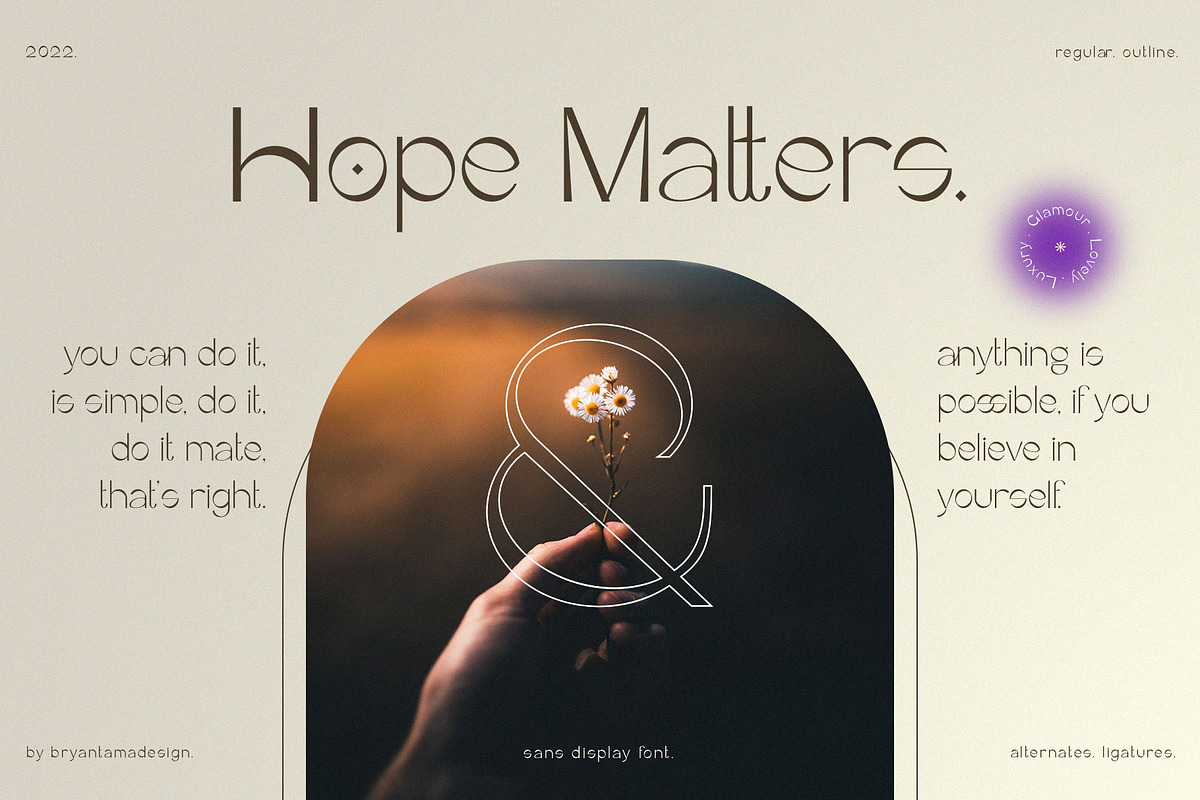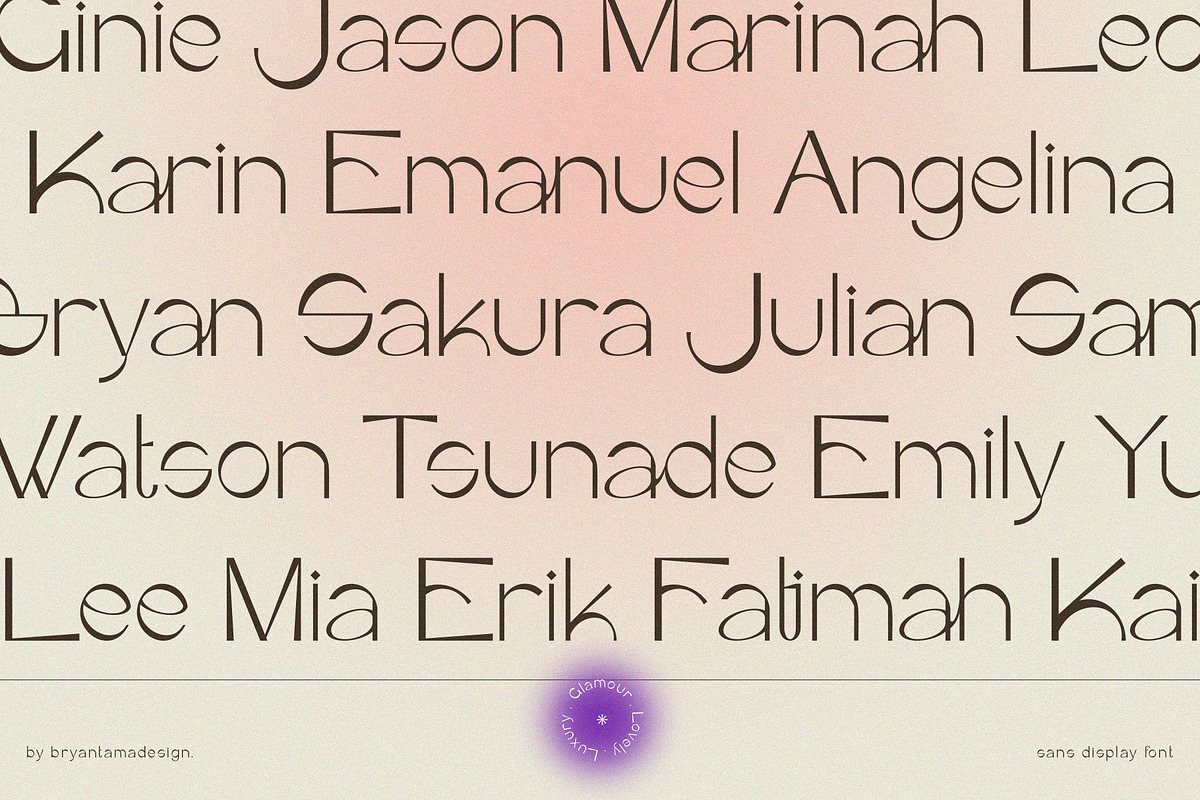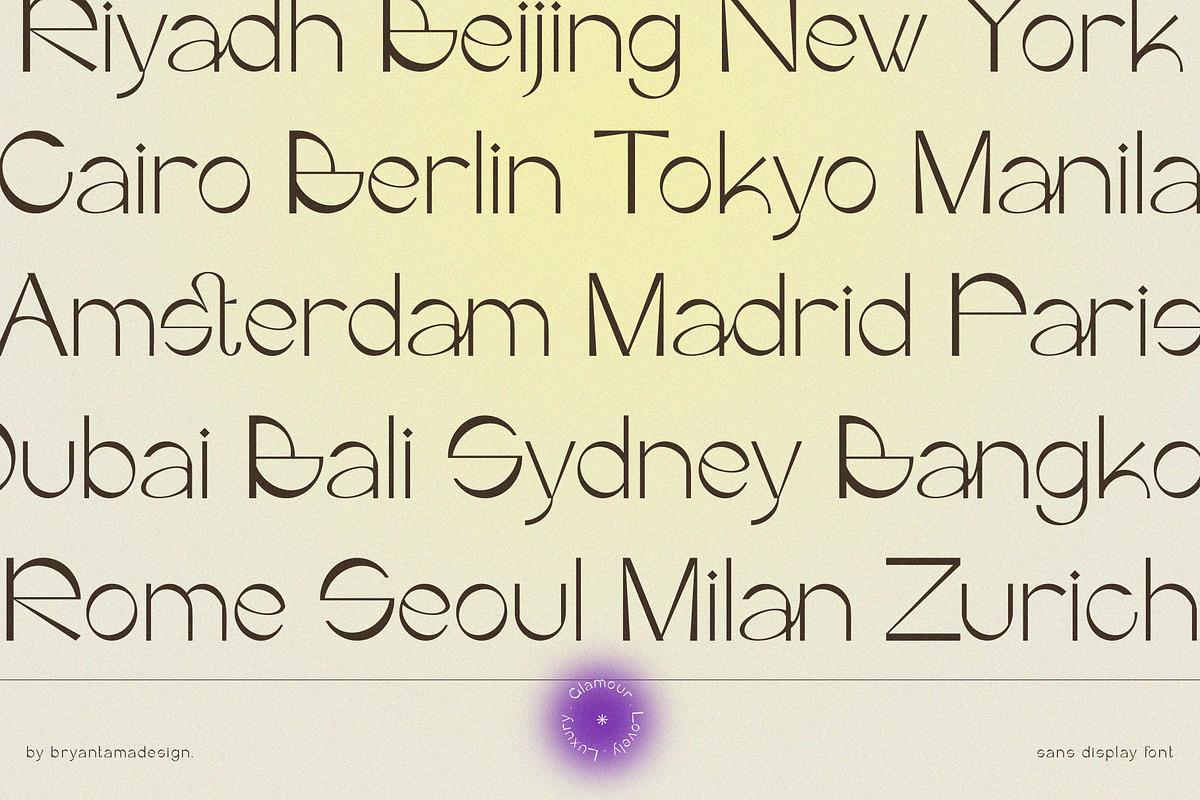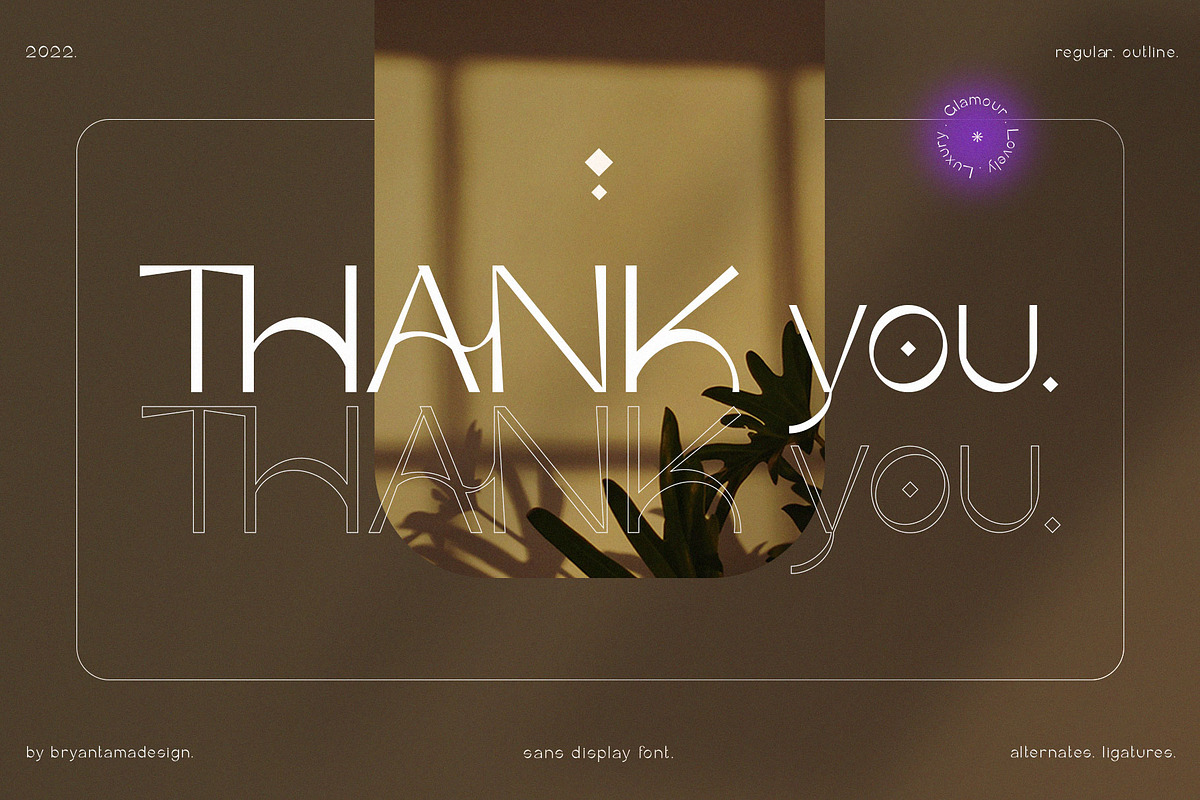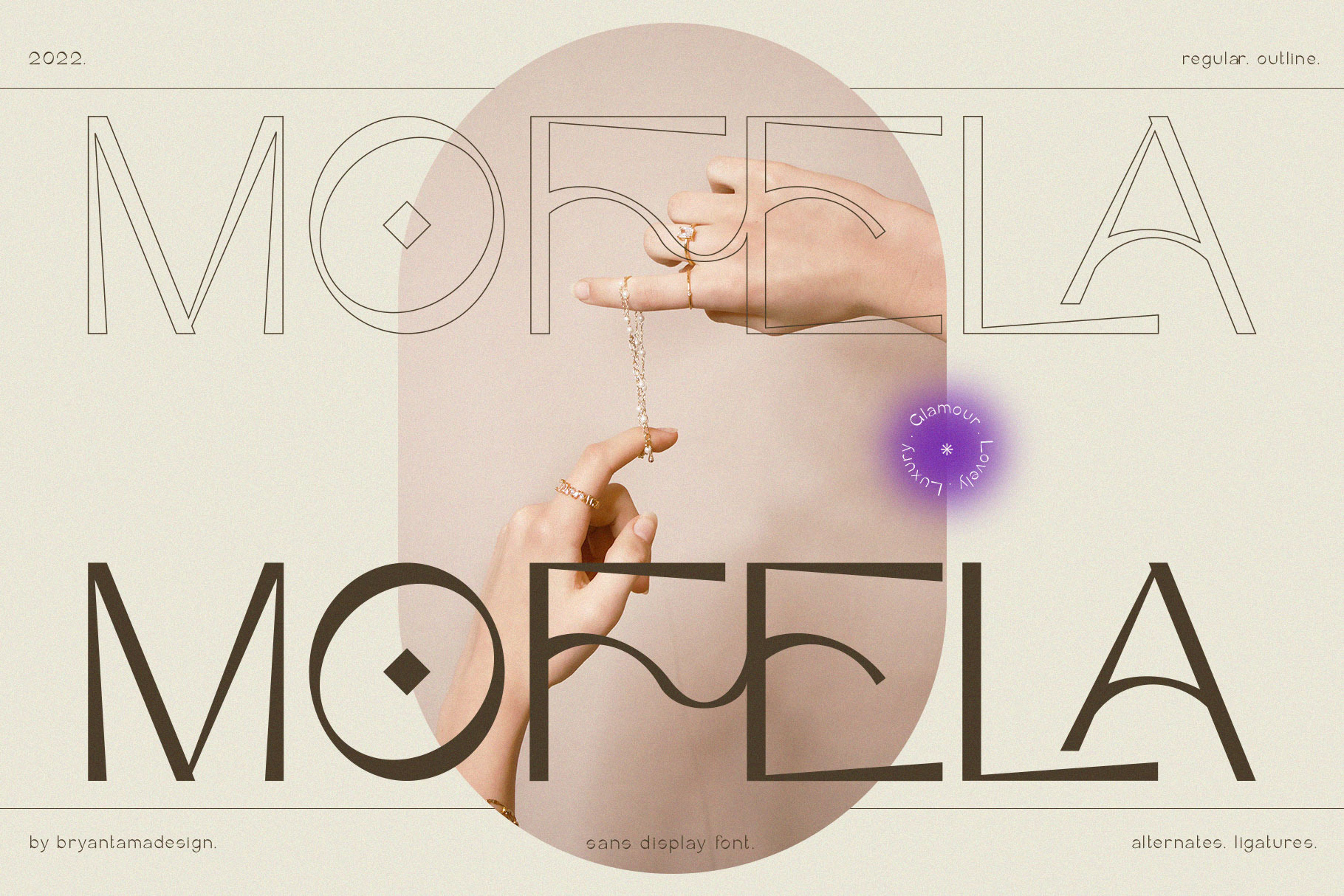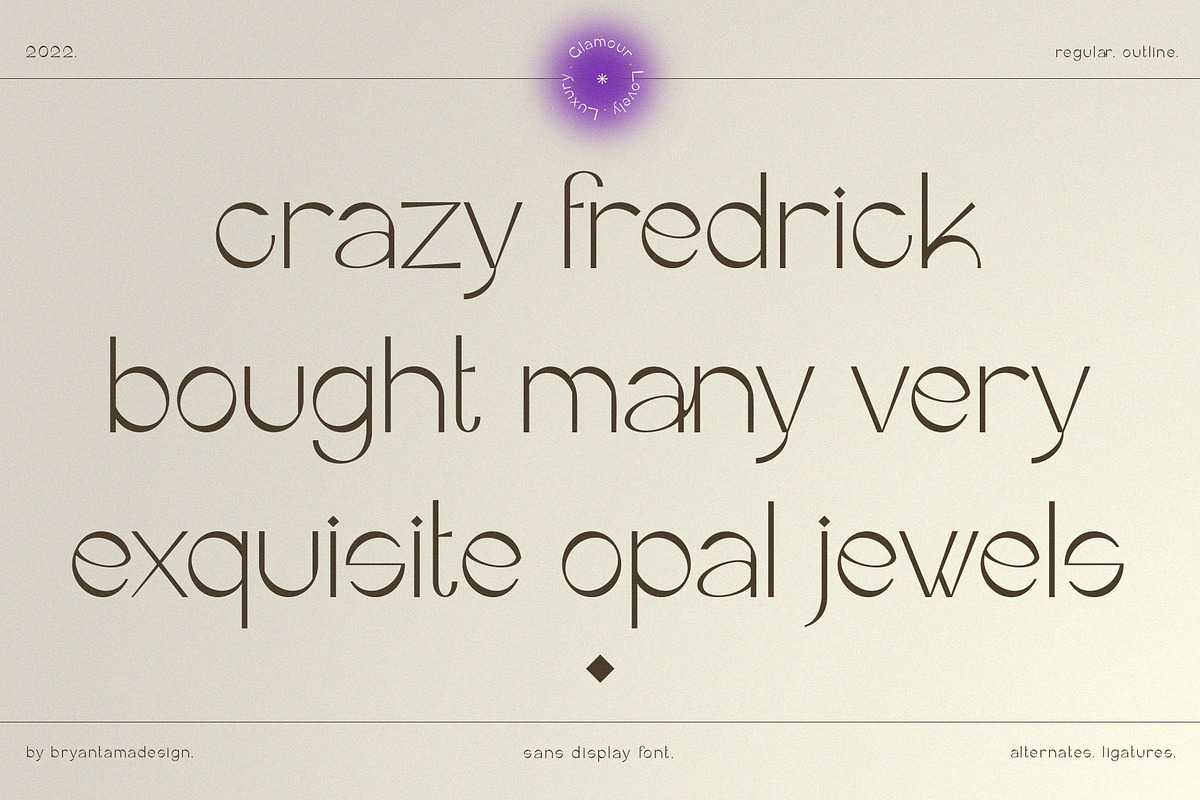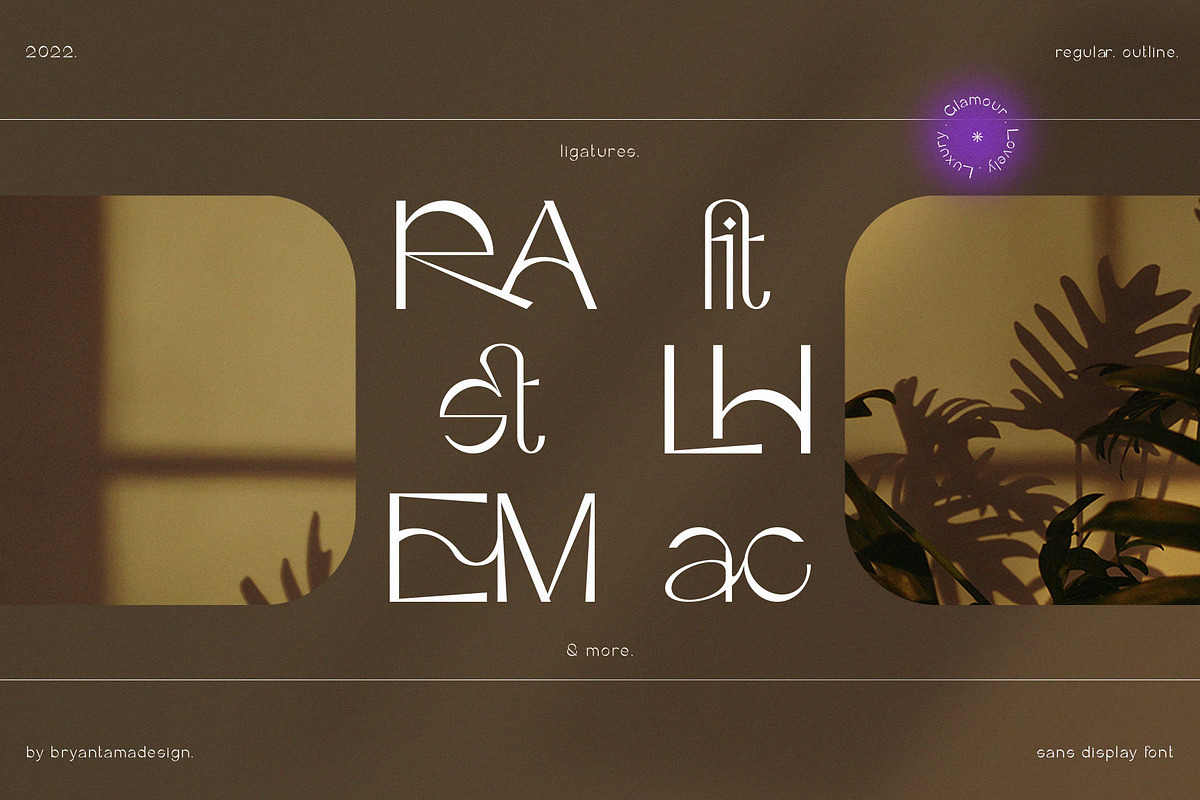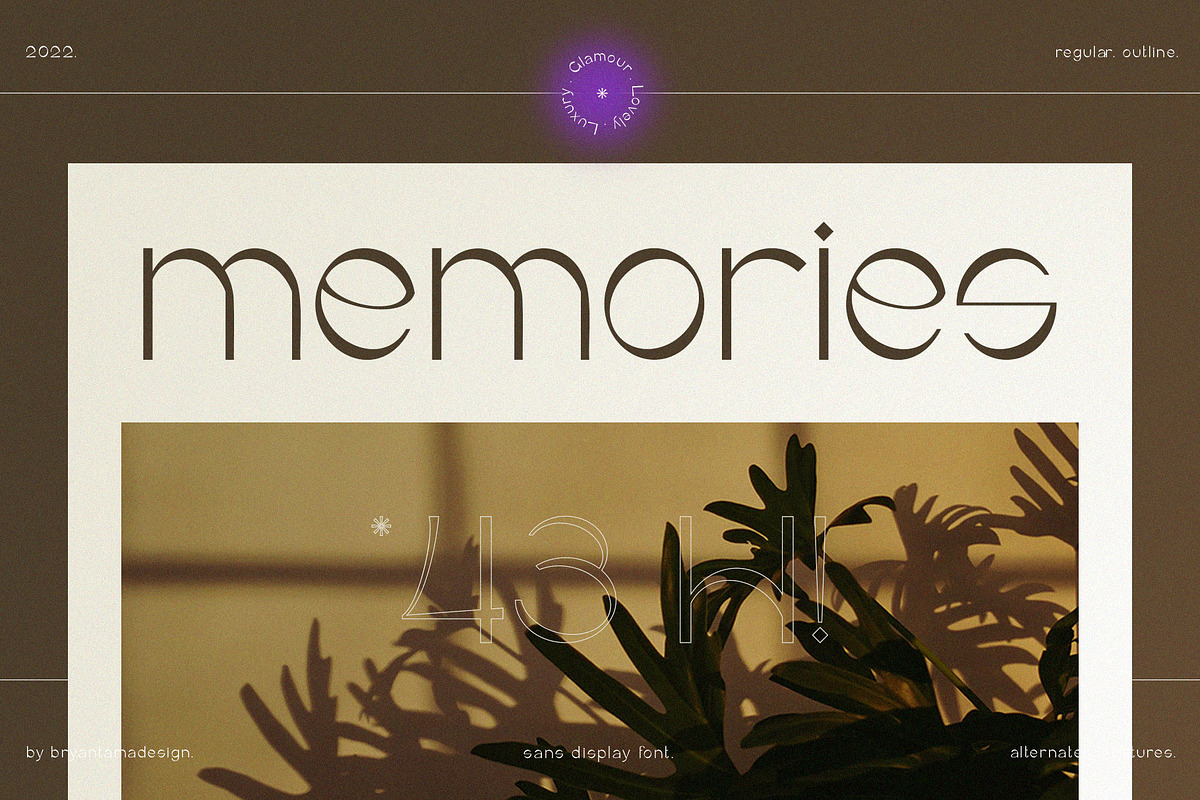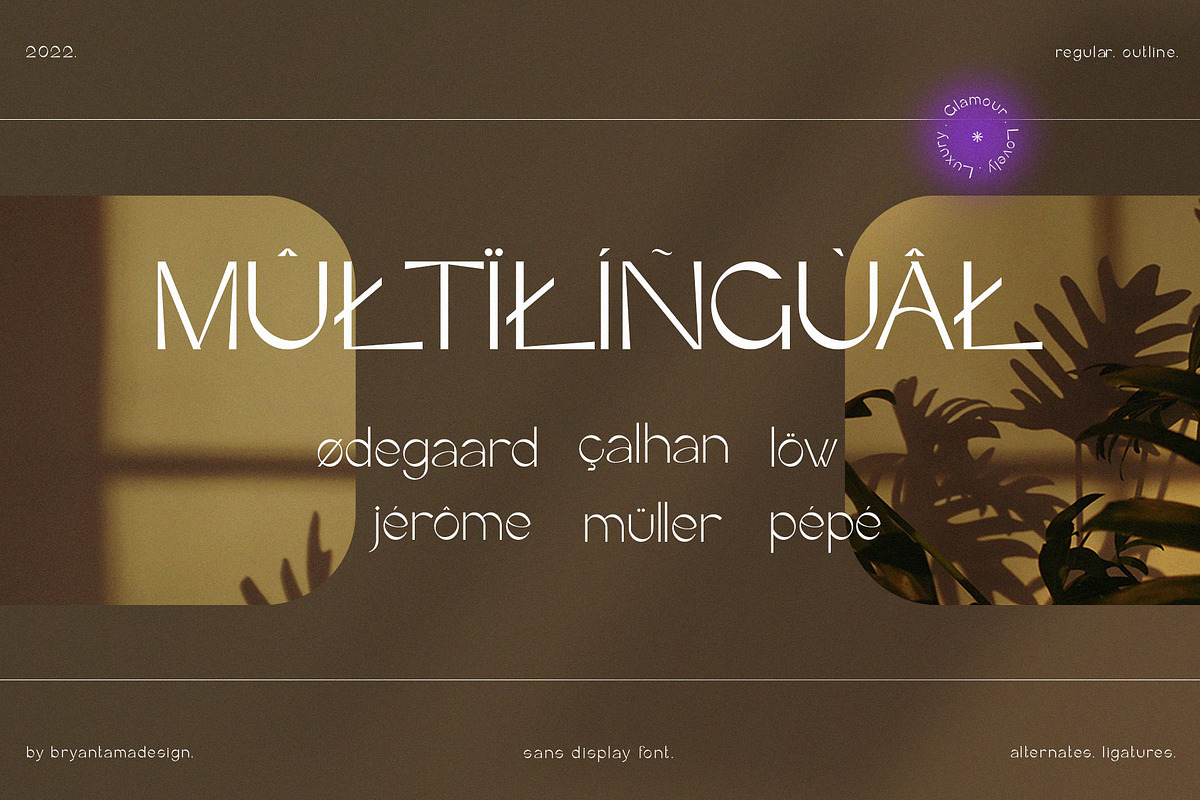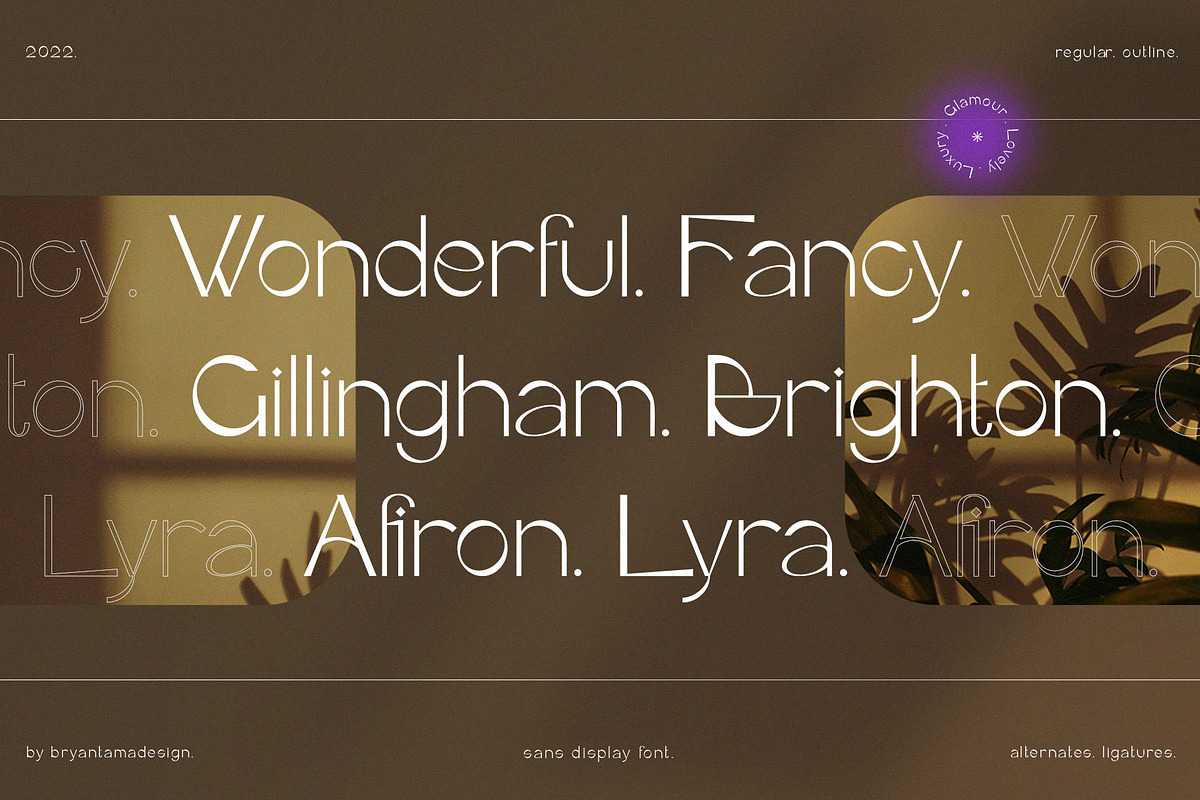
Mofela - Modern Display Font
Introducing Mofela. Modern Displays Font. Inspired by a luxury theme with magical feels that makes the font has a unique personality, you can use it for branding, social media, posters, packaging, & more.
Uppercase, Lowercase, Numbers, Punctuation.
Opentype Features (Alternates & Ligatures).
Multilingual Support.
Outline Font.
Elevate your designs with Mofela Font, a sophisticated display font defined by sleek lines and refined curves. Crafted for high-end branding, editorial layouts, and luxury packaging, it delivers an effortless sense of class and exclusivity. What a Beauty!